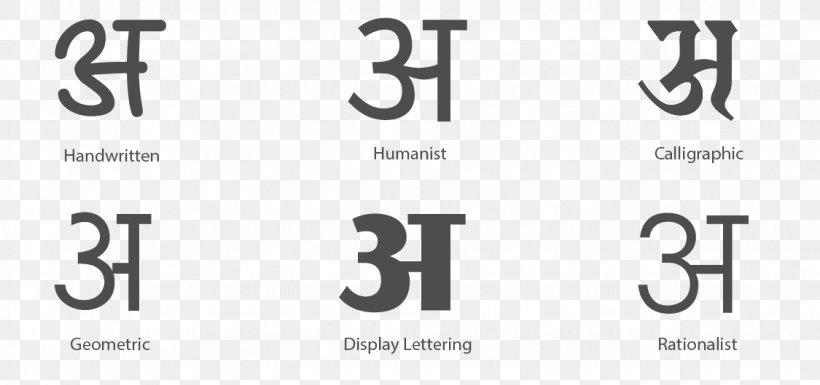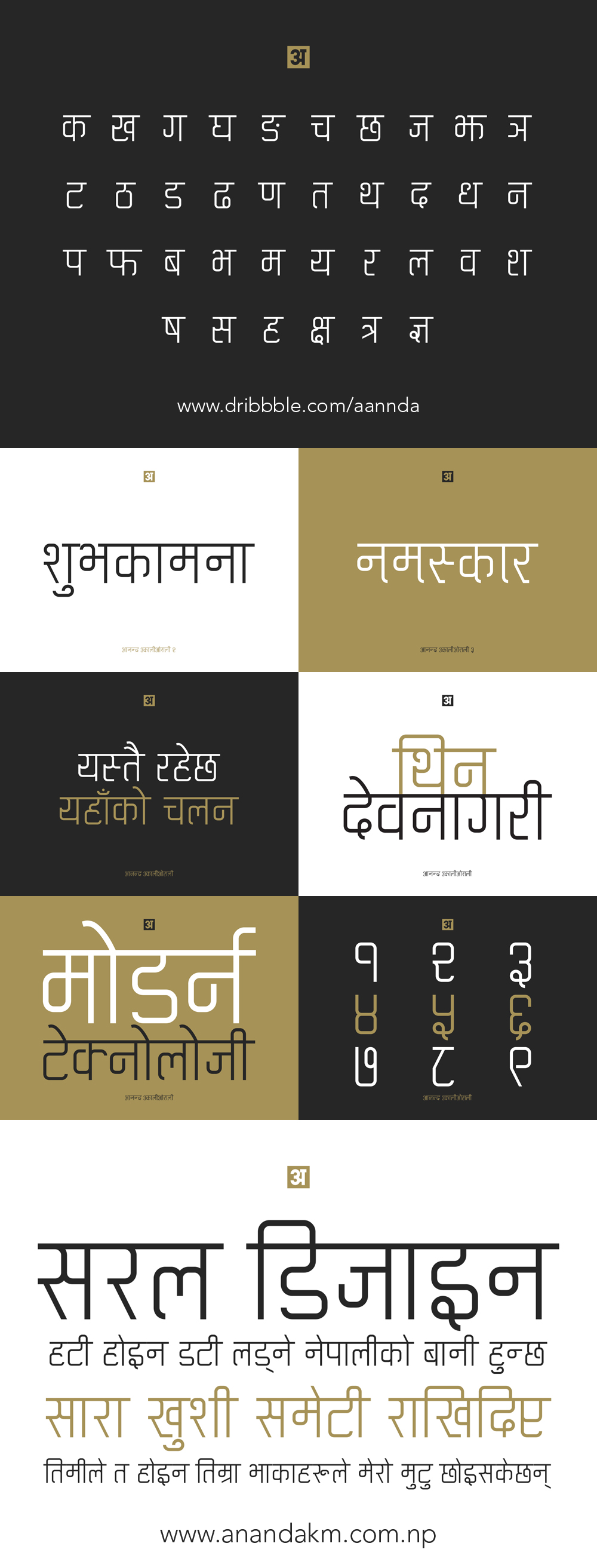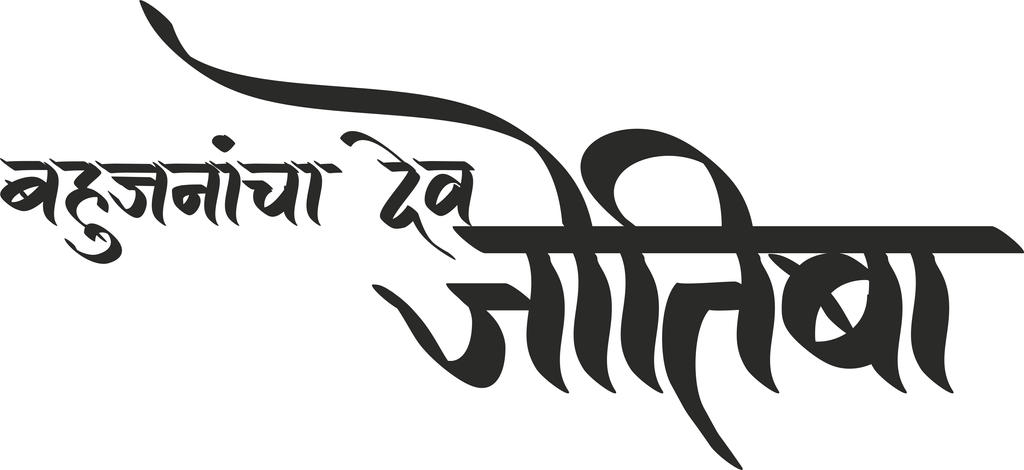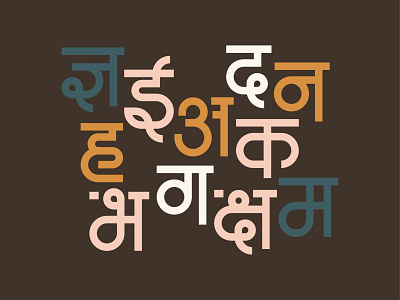
It usually involves a nibbed pen or brush. We offer fast servers so you can Download Devanagari Fonts and get to work quickly.
Its the perfect font for designing everything from website headers to greeting cards T.
Devanagari calligraphy fonts free download. The main sub-styles are traditional calligraphy and modern. 45 of 1052 families. Ananda FANKO Brush Devanagari Handwriting font free Ananda Fanko Brush Calligraphy Devanagari Font specially designed for Nepali Film Fanko Available in 2 version with and without shirorekha head dikline and also contains extra alternate characters for handwriting effect.
Anurati is a free Hindi font that is available in regular bold italic and condensed font styles. Download Hindi Calligraphy Fonts Ttf Free Download This beautiful handwritten script font features both uppercase and lowercase letters with numbers and punctuations. Font All Free.
We hope you enjoy our site and please dont forget to vote for your favorite Devanagari Fonts. Devanagari Fonts Welcome to DevanagariFonts The largest and unique site that is completely dedicated to providing you easy and free download of Devanagari fonts. It comes in two weightsregular and boldin upright and oblique slanted with only the absolutely necessary corrections styles.
OnlineWebFontsCOM is Internet most popular font online download websiteoffers more than 8000000 desktop and Web font products for you to preview and download. The writing is readable but is usually extravagant and embellished with flourishes. Download Devanagari Fonts for free in the highest quality available.
We use cookies to analyze how you use our site and show ads related to your preferences. Its font is inspired by calligraphy traditional art and Devanagari script. Calligraphy is an artistic writing style where the pressure is varied to create thick and thin lines all in a single stroke.
2082 search results for calligraphicdevanagari. You are in the right place for Hindi fonts free. Cambay is a libre Devanagari typeface designed to match Cantarell Latin.
Ranjana Lipi Regular - Free download screenshot rating and more information. Download Free hand writing in devanagari calligraphy Fonts for Windows and Mac. Anurati is a free Hindi font designed by Shridhar Bhatkal and released by Satyan Gajwani in 2014.